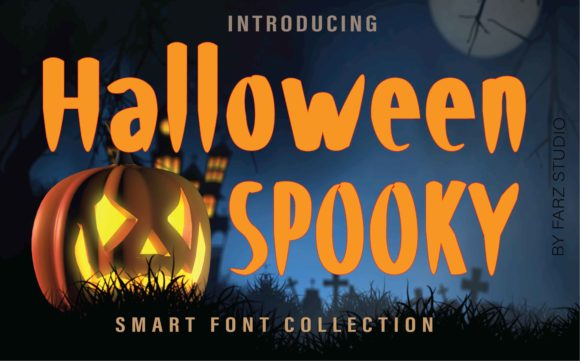
Embark on a spine-tingling adventure with Halloween Spooky Font, a display font that oozes an eerie charm, perfect for conjuring up the spirit of the haunted season. Crafted by the talented artists at Farz Studio, this font family boasts a distinct, chunky lettering style that adds a touch of quirkiness to any project.
With its captivating glyphs and dynamic strokes, Halloween Spooky Font is not just a font; it's a magical portal to the realm of the unknown. Cast spells with your words, craft enchanting invitations, design spine-chilling posters, or create haunting social media graphics that will send shivers down your audience's spines.
This font family is a master of versatility, adapting seamlessly to a myriad of contexts. Let your imagination run wild as you adorn website text, book covers, movie titles, or Halloween-themed designs with its enchanting presence. The possibilities are endless, limited only by the boundaries of your creativity.
Step into the realm of the macabre with Halloween Spooky Font. Its captivating aura will cast a spell on your designs, turning them into haunting masterpieces that evoke the essence of the supernatural. Unleash the power of this font and create visual wonders that will leave your audience spellbound.